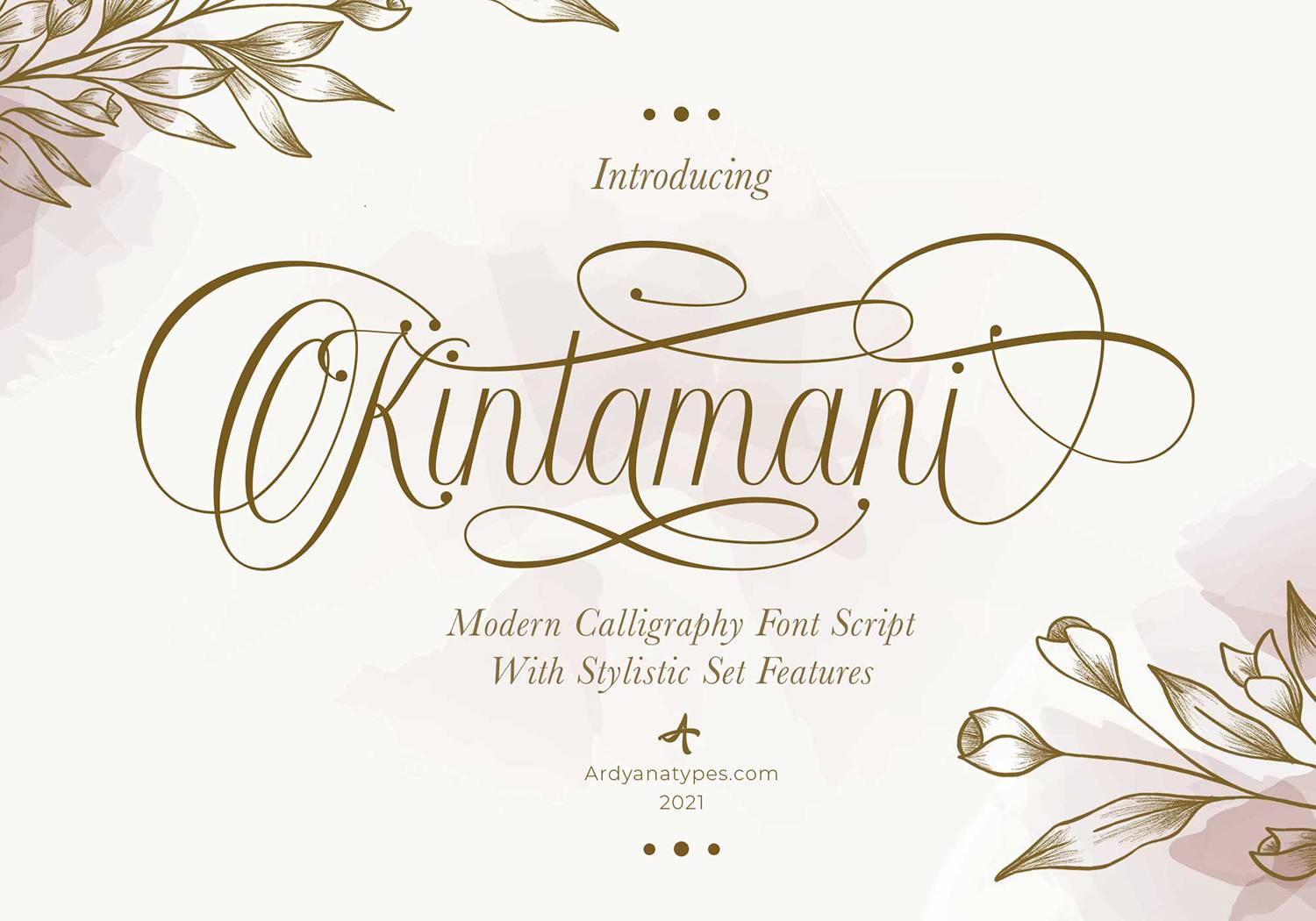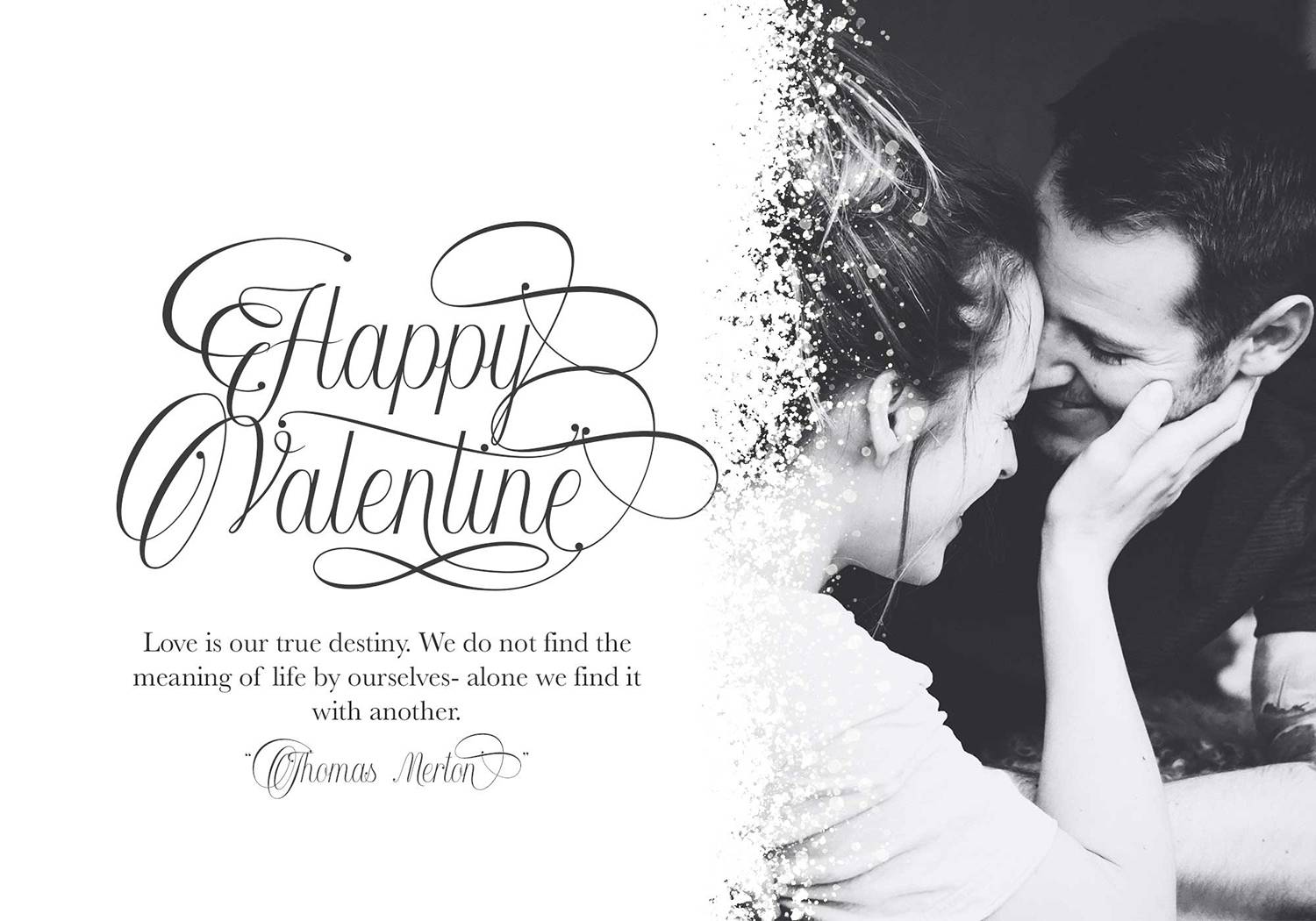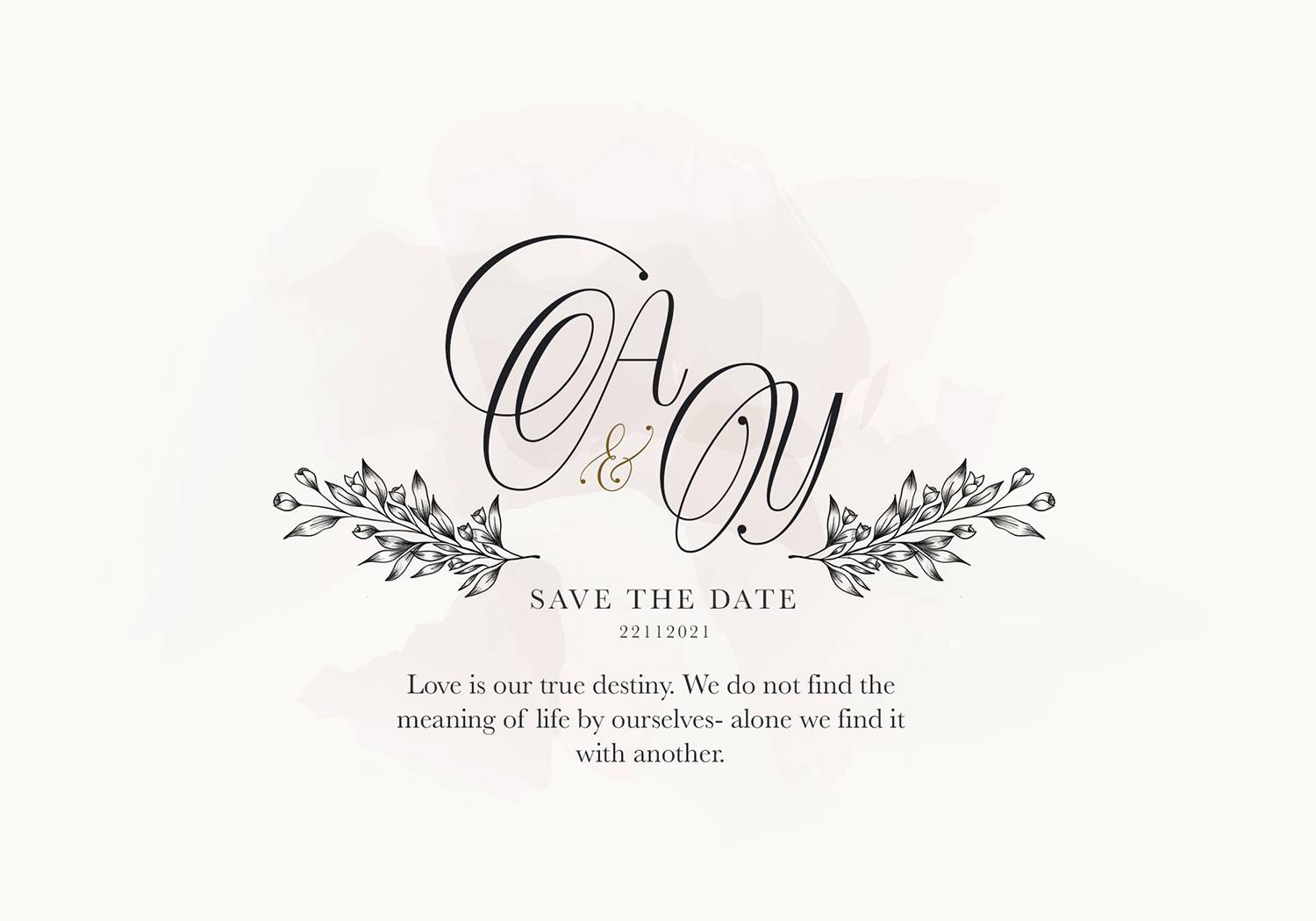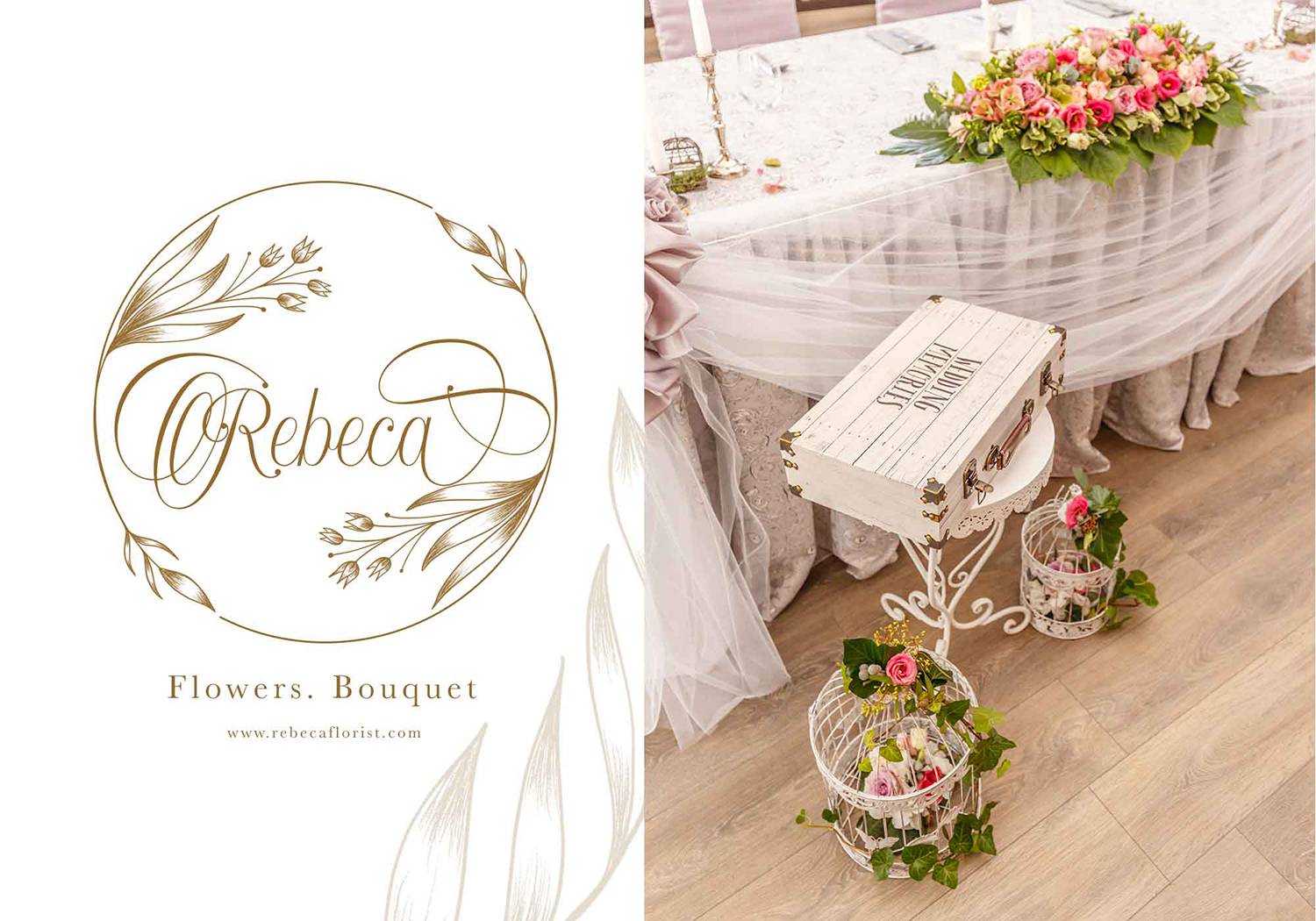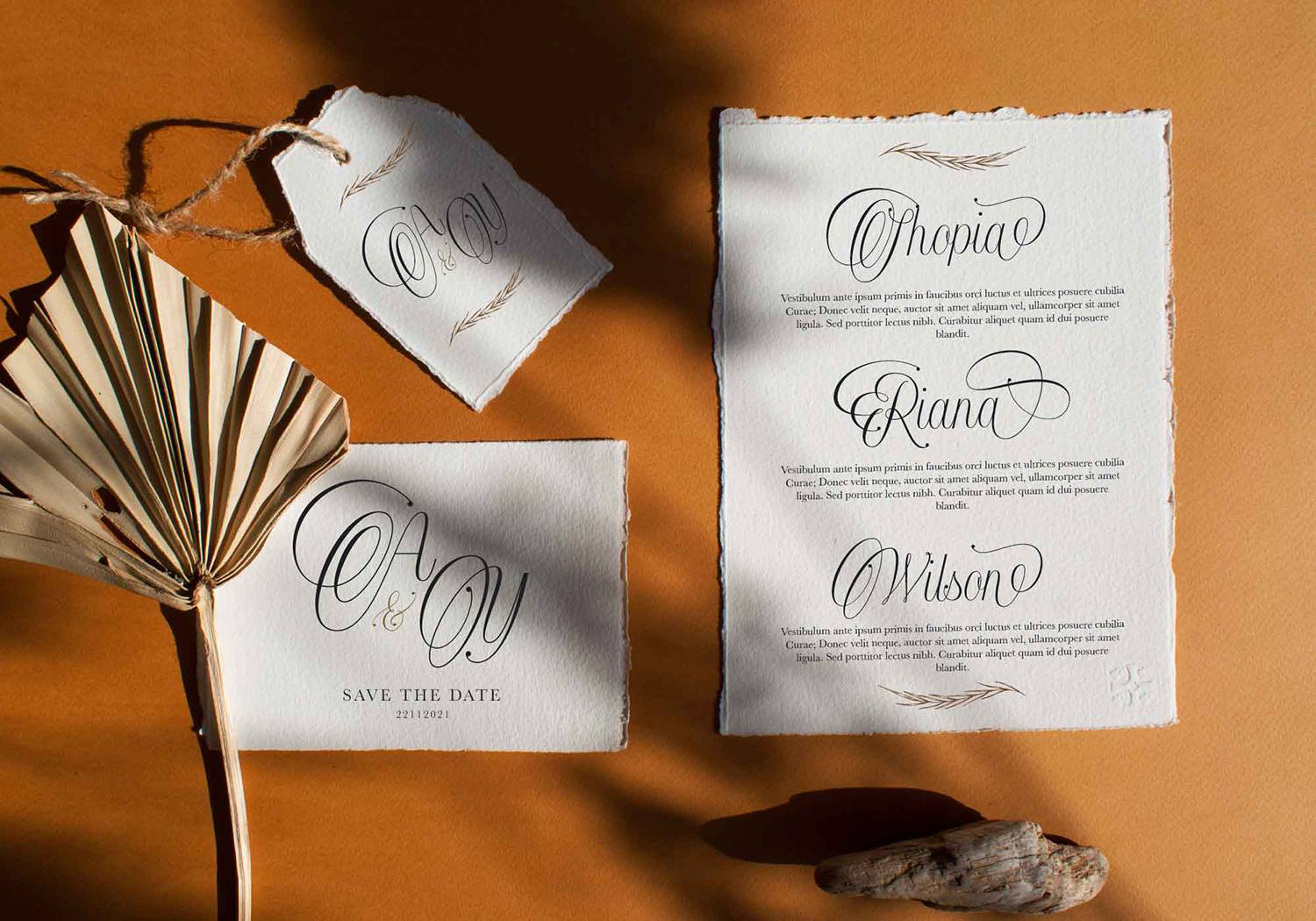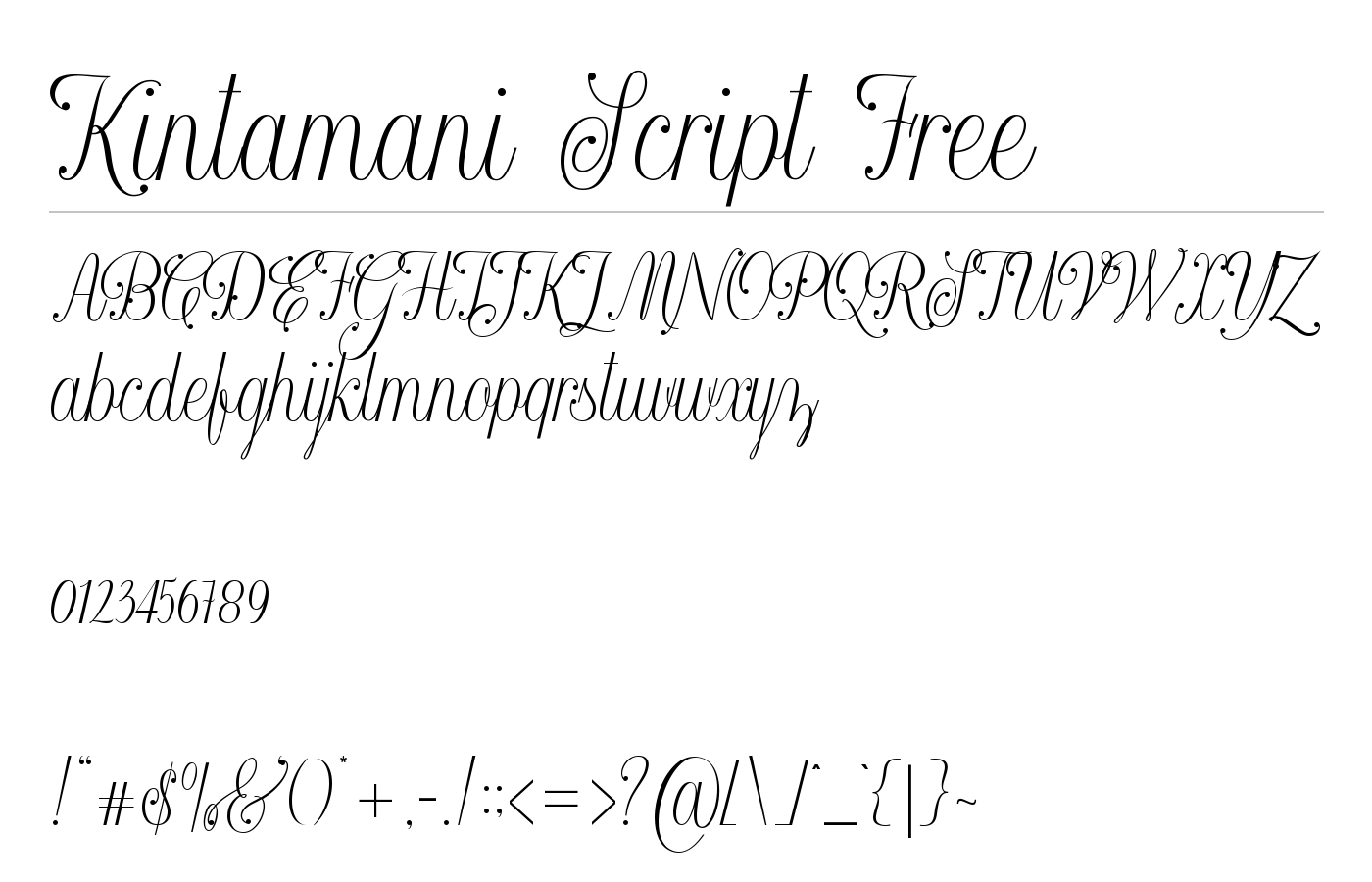
Kintamani is an elegant, delicate script font characterized by its thin strokes and graceful, flowing forms with decorative swirls, especially on uppercase letters. Its tall, narrow letterforms and fine contrast give it a sophisticated and refined look, making it ideal for luxury branding, wedding invitations, and feminine design projects where a touch of classic charm is desired. This font works best in headlines or decorative uses rather than body text due to its intricate details and light weight.
Kintamani Font
About Kintamani Font
| Font family | Kintamani Font |
| Designer | Ardyanatypes |